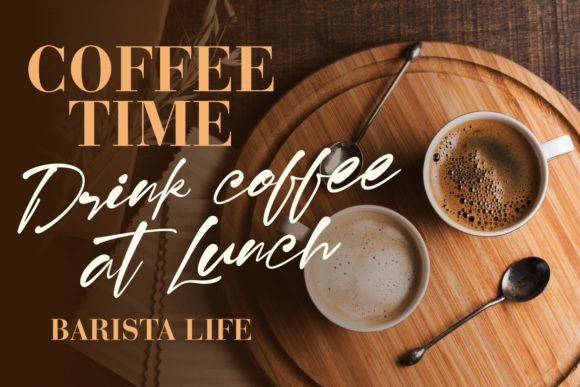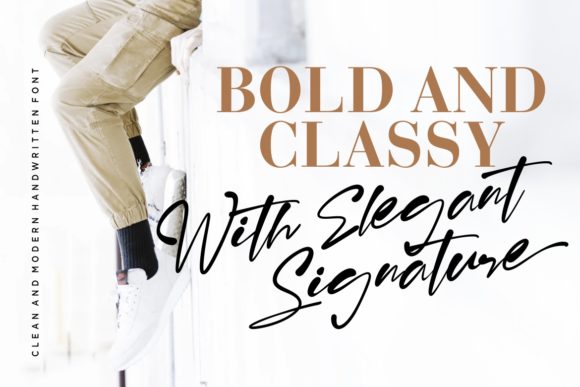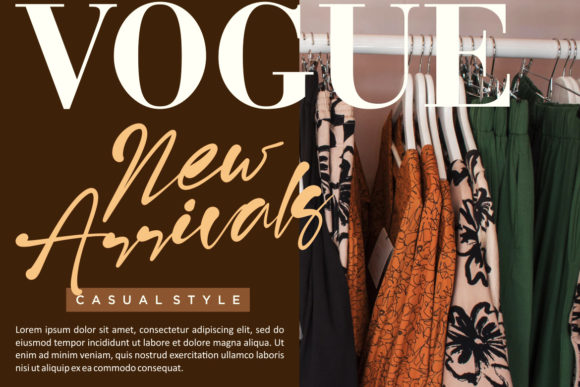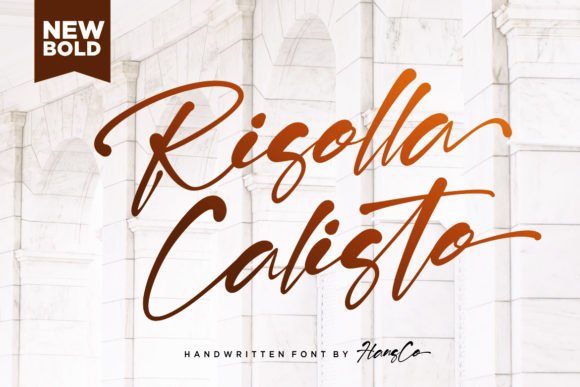
Introduction to Risolla Calisto Font
Risolla Calisto is charming and dynamic, but also elegant.
This versatile script font has a wide range of applications ranging from headlines to branding and is guaranteed to add a magical touch to your next design This font is PUA encoded which means you can access all of the gorgeous glyphs and swashes with ease.